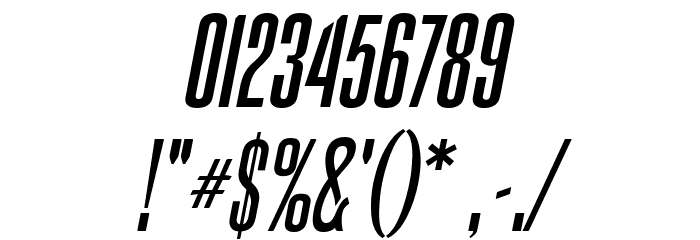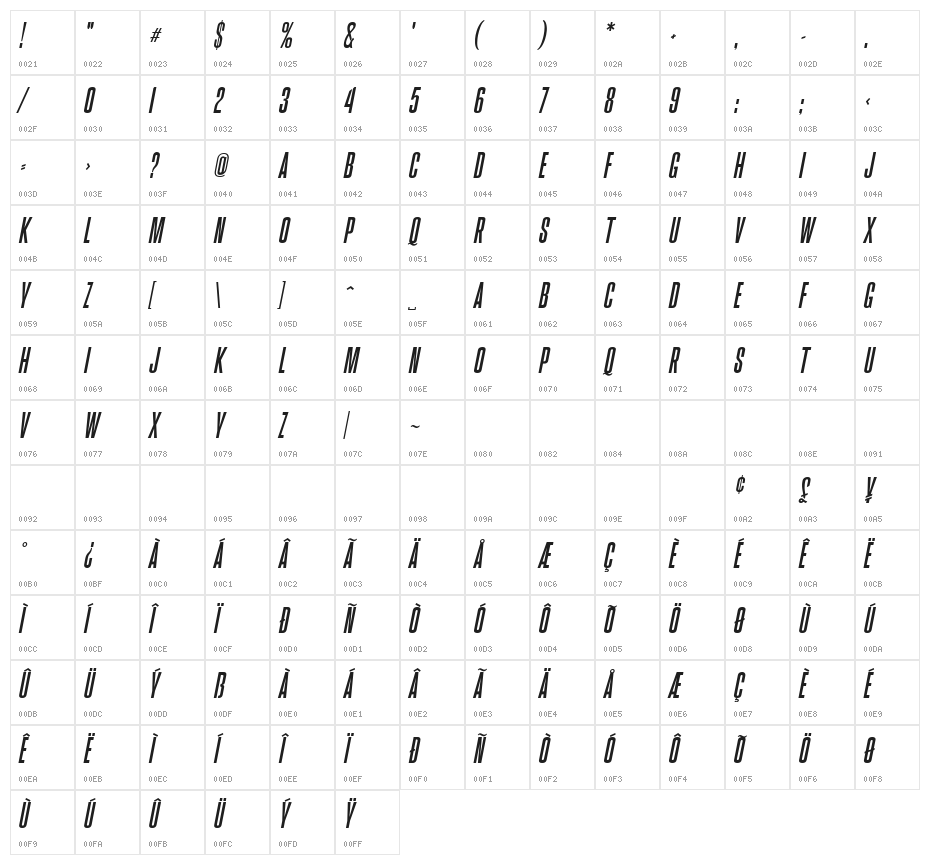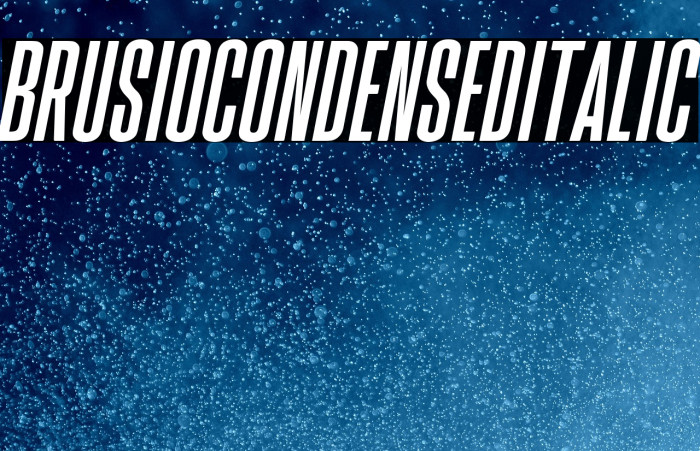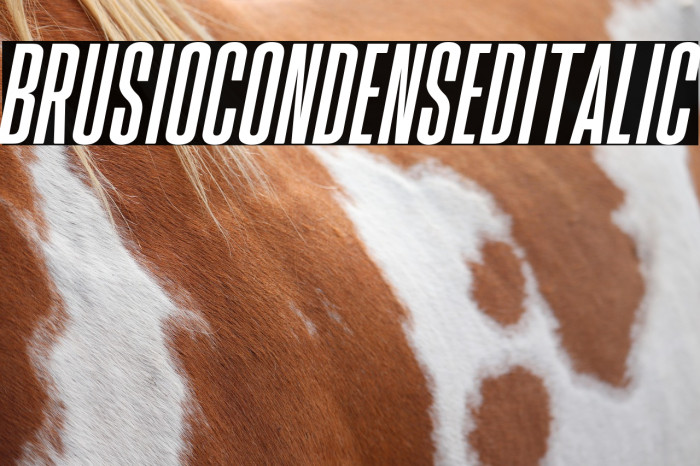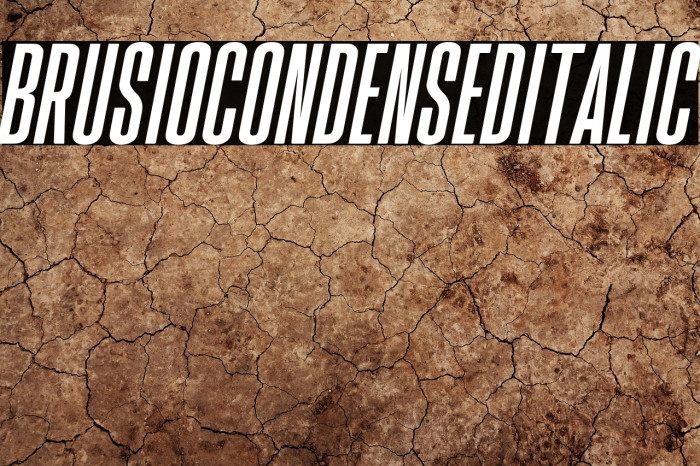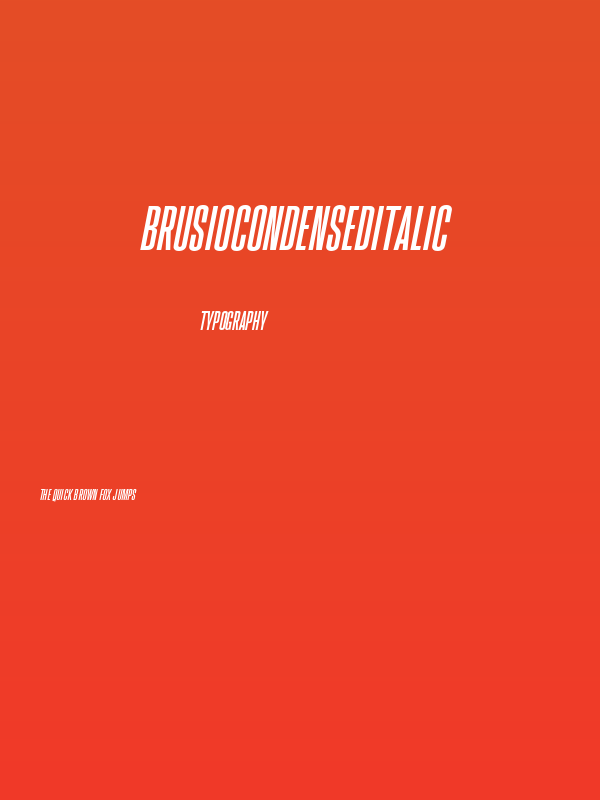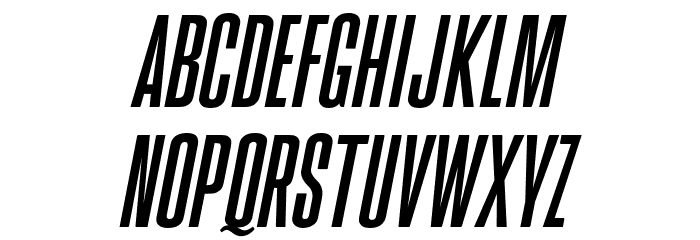
BrusioCondensedItalic Font
BrusioCondensedItalic Description
This font features a striking, condensed style with a pronounced italic slant, giving it a dynamic and forward-moving appearance. The characters are tall and narrow, emphasizing verticality and creating a sense of urgency and speed. The strokes are consistent in weight, contributing to a clean and modern look. The uppercase and lowercase letters maintain a uniformity that enhances readability despite the condensed form. The numerals and special characters are designed to match the overall aesthetic, ensuring cohesion across all elements. This font is ideal for making bold statements in headlines or titles where space is limited but impact is essential.
| Proposed Projects | Ideal for headlines, posters, branding, and advertising where a strong, impactful presence is needed. |